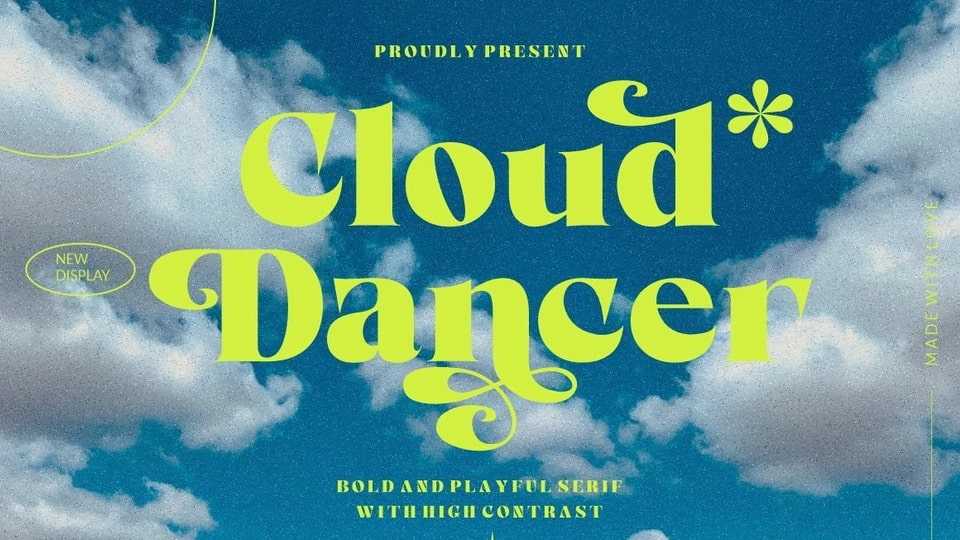
Download Cloud Dancer font, a bold and high-contrast display serif typeface with delightful nostalgic feeling. Cloud Dancer font is perfect for corporate identities, websites, publications, titles, books, magazines, business cards, logos, product labels, packaging, or any kind of advertising purpose.